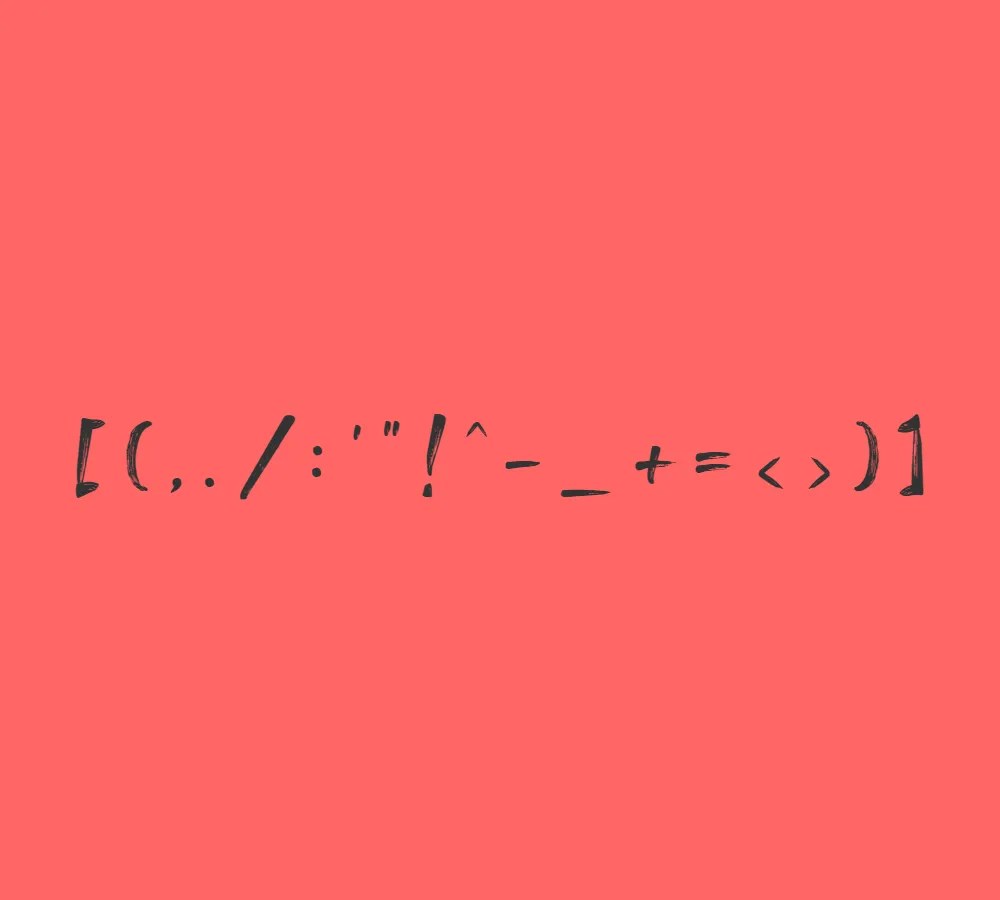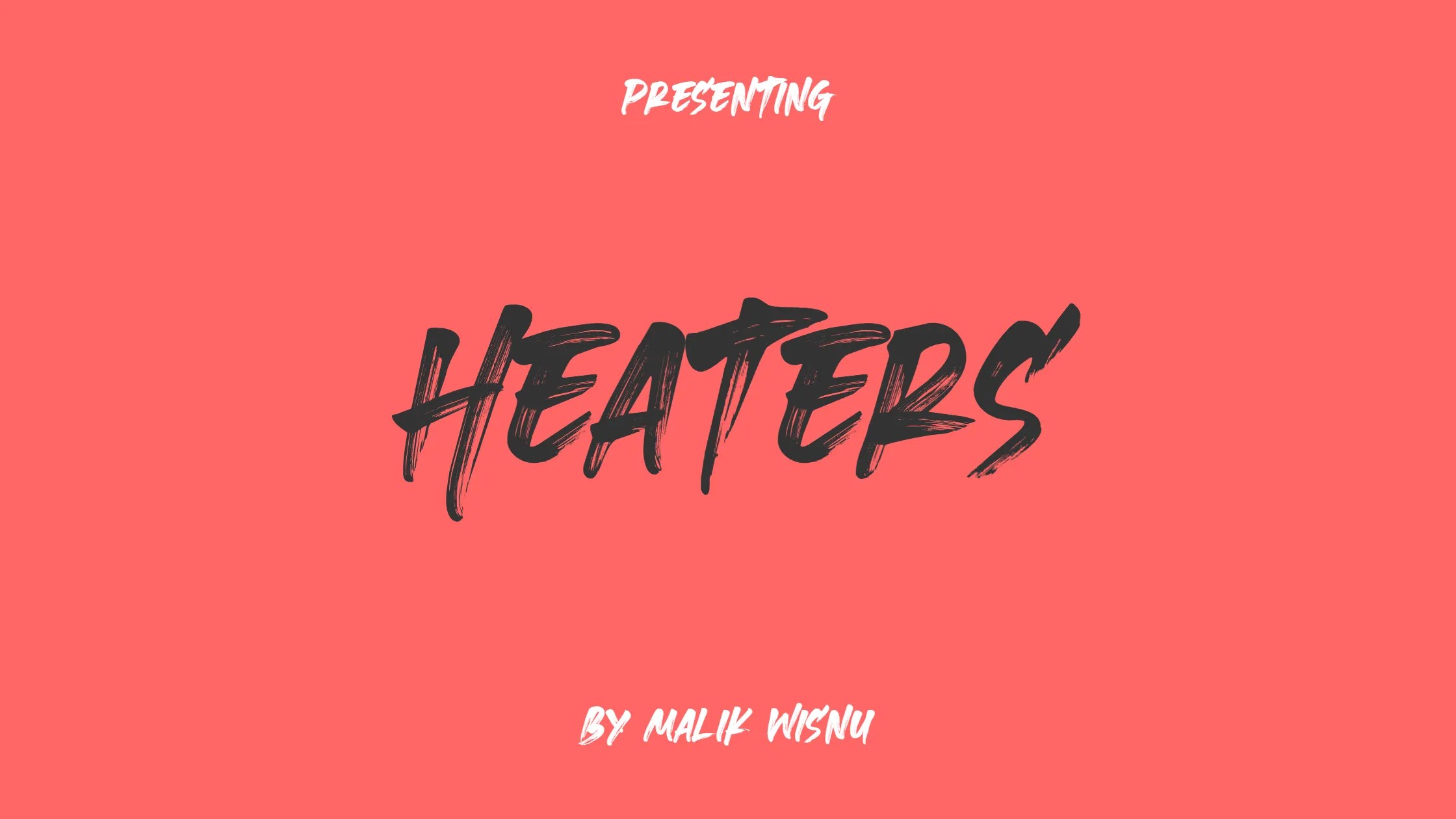
Heaters Font Ttf Download . See how to download heaters for free! Download heaters [pc/mac] use as web font. Heaters font by mlkwsn studio. ️ customize your own preview on ffonts.net to make sure it`s. Download the heaters font for free. Fonts are in ttf, otf format and with. This demo font is for personal use only! A great choice for highlighting your design elements. The heaters font contains 171 beautifully designed characters. Free fonts by category, type, daily updates. Heaters font preserves all the high definition detail of the original handwritten letters.
Download heaters [pc/mac] use as web font. Fonts are in ttf, otf format and with. The heaters font contains 171 beautifully designed characters. This demo font is for personal use only! A great choice for highlighting your design elements. Heaters font by mlkwsn studio. Free fonts by category, type, daily updates. Heaters font preserves all the high definition detail of the original handwritten letters. Download the heaters font for free. ️ customize your own preview on ffonts.net to make sure it`s.
Heaters Font Ttf Download heaters [pc/mac] use as web font. This demo font is for personal use only! Fonts are in ttf, otf format and with. The heaters font contains 171 beautifully designed characters. ️ customize your own preview on ffonts.net to make sure it`s. Download heaters [pc/mac] use as web font. Heaters font preserves all the high definition detail of the original handwritten letters. A great choice for highlighting your design elements. Free fonts by category, type, daily updates. Download the heaters font for free. Heaters font by mlkwsn studio. See how to download heaters for free!
Heaters SVG Font Collections graphic design, Handwritten letters, Svg Heaters Font Ttf Download See how to download heaters for free! Heaters font preserves all the high definition detail of the original handwritten letters. Heaters font by mlkwsn studio. ️ customize your own preview on ffonts.net to make sure it`s. A great choice for highlighting your design elements. This demo font is for personal use only! Download heaters [pc/mac] use as web font. Free. Heaters Font Ttf Download.
The Heater Font Heaters Font Ttf Download the heaters font for free. Free fonts by category, type, daily updates. Heaters font preserves all the high definition detail of the original handwritten letters. The heaters font contains 171 beautifully designed characters. Download heaters [pc/mac] use as web font. Heaters font by mlkwsn studio. ️ customize your own preview on ffonts.net to make sure it`s. A great choice. Heaters Font Ttf Download.
Heater Font by putrasyahreza00 · Creative Fabrica Heaters Font Ttf Download Fonts are in ttf, otf format and with. Heaters font by mlkwsn studio. Heaters font preserves all the high definition detail of the original handwritten letters. See how to download heaters for free! A great choice for highlighting your design elements. This demo font is for personal use only! ️ customize your own preview on ffonts.net to make sure it`s.. Heaters Font Ttf Download.
Free font Heaters preview Free Fonts Pro Heaters Font Ttf Download The heaters font contains 171 beautifully designed characters. A great choice for highlighting your design elements. Heaters font preserves all the high definition detail of the original handwritten letters. Heaters font by mlkwsn studio. Download heaters [pc/mac] use as web font. Free fonts by category, type, daily updates. This demo font is for personal use only! Download the heaters font. Heaters Font Ttf Download.
Heaters Brush Font Free Fonts Heaters Font Ttf Download ️ customize your own preview on ffonts.net to make sure it`s. A great choice for highlighting your design elements. This demo font is for personal use only! Heaters font preserves all the high definition detail of the original handwritten letters. The heaters font contains 171 beautifully designed characters. Heaters font by mlkwsn studio. Fonts are in ttf, otf format and. Heaters Font Ttf Download.
Heaters Font Free Download Heaters Font Ttf Download Heaters font preserves all the high definition detail of the original handwritten letters. ️ customize your own preview on ffonts.net to make sure it`s. The heaters font contains 171 beautifully designed characters. This demo font is for personal use only! A great choice for highlighting your design elements. Fonts are in ttf, otf format and with. Heaters font by mlkwsn. Heaters Font Ttf Download.